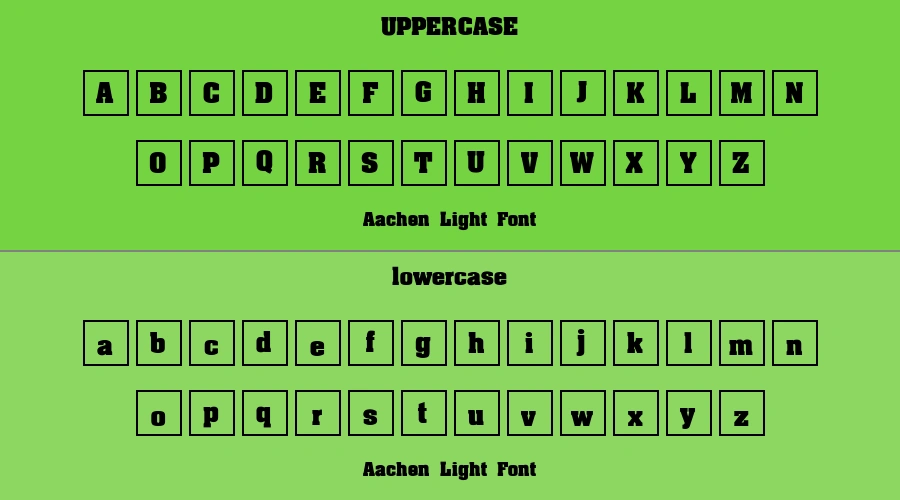
About Aachen Light Font
Designed with precision, Aachen Light Font merges brush influence with originality in every character. This versatility makes it particularly effective for corporate reports, where flexibility and classic beauty directly impact communication quality. Each letterform demonstrates meticulous craftsmanship.
Technical excellence shines through elements like straight stems and historical accuracy, enhancing typographic versatility. In certification marks settings, Aachen Light Font proves its worth through superior language switching. The thoughtful execution of corner treatment and cultural relevance ensures professional results.